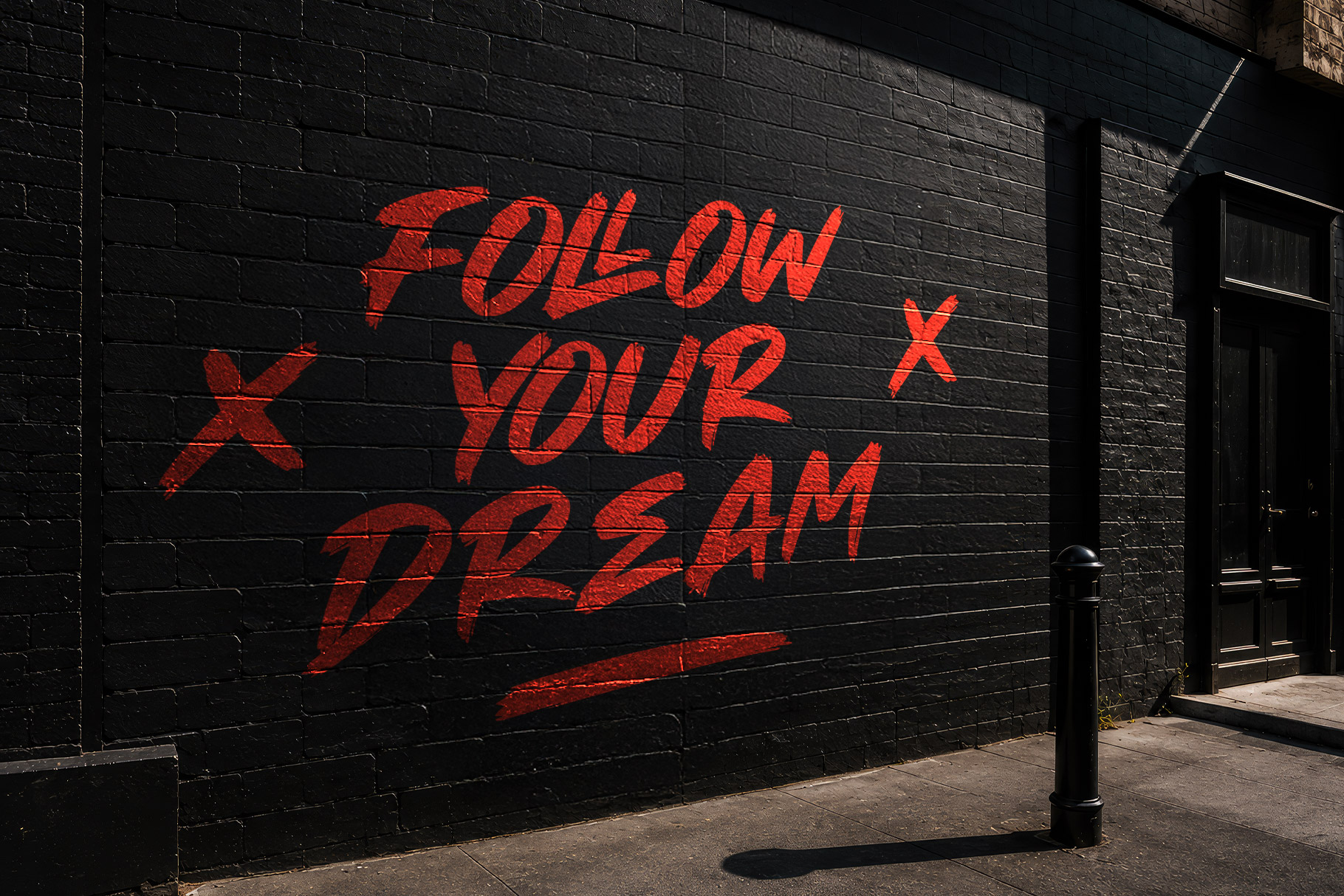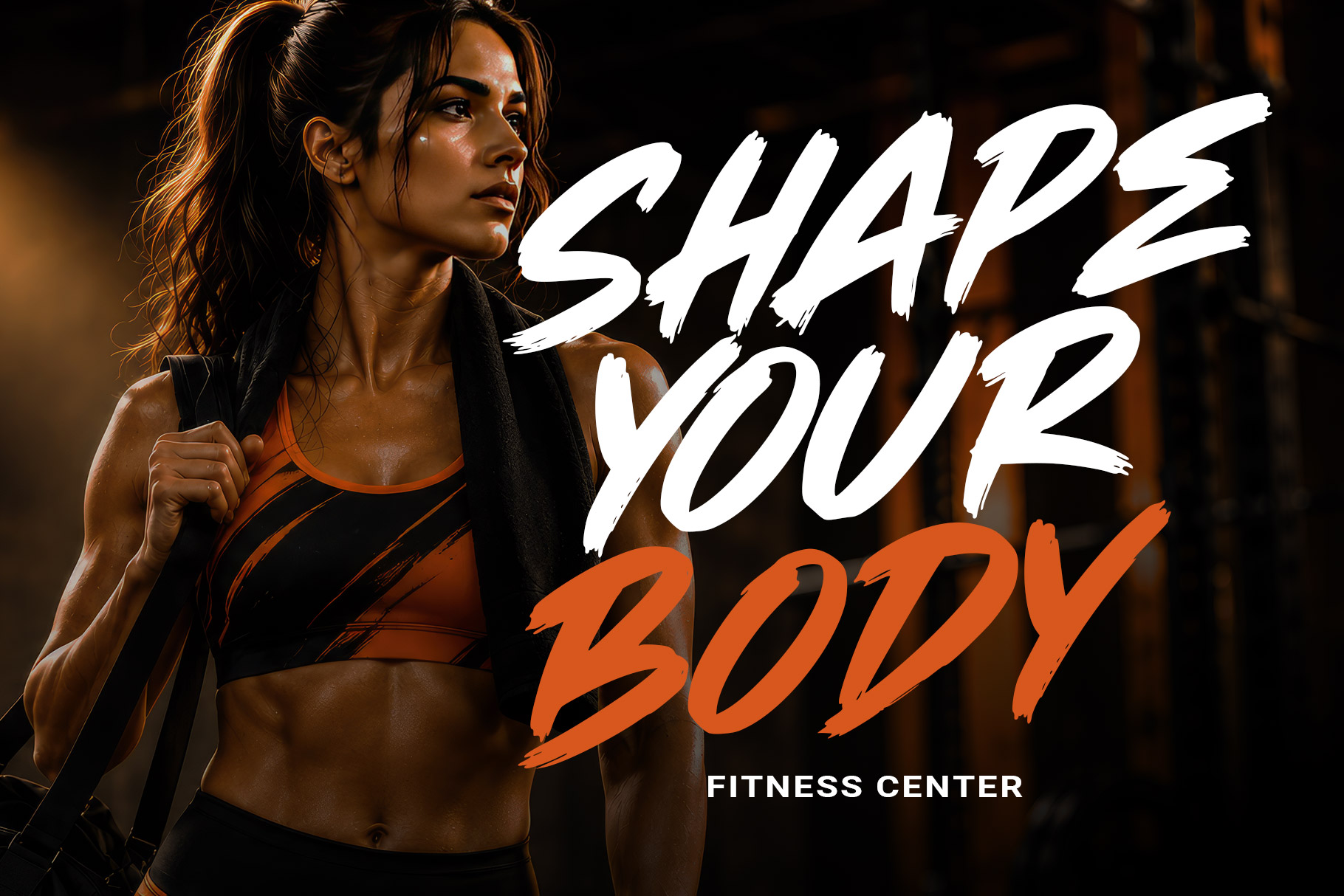
The Rolley is a stylish brush font that captures the raw energy of hand-painted lettering with a bold, contemporary attitude. Every stroke feels spontaneous and expressive, creating an authentic handcrafted appearance that instantly commands attention. The Rolley is a perfectly choice for any creative endeavor, creating, modern, lifestyle design such as logotype, title, cover, branding, invitations, wedding designs, display and magazine, social media posts, advertisements, printed quotes, product packaging, corporate brand, product designs, labels, photography, watermarks, special events and any other project with modern touch.
The Rolley Stylish Brush Font